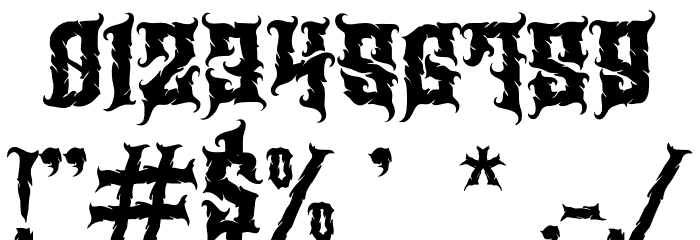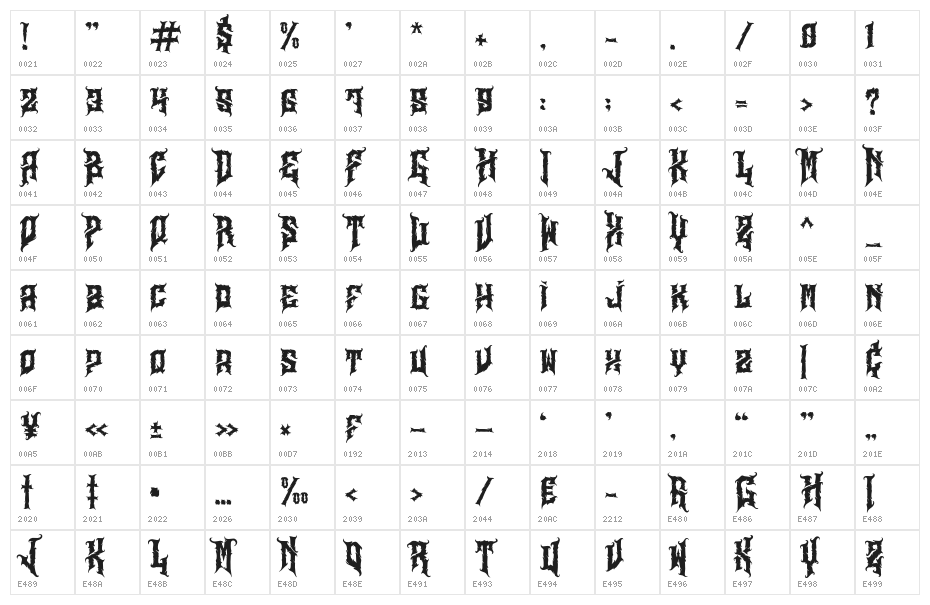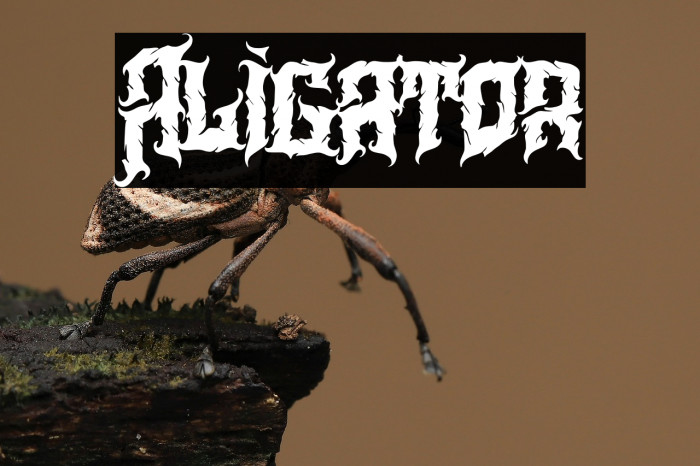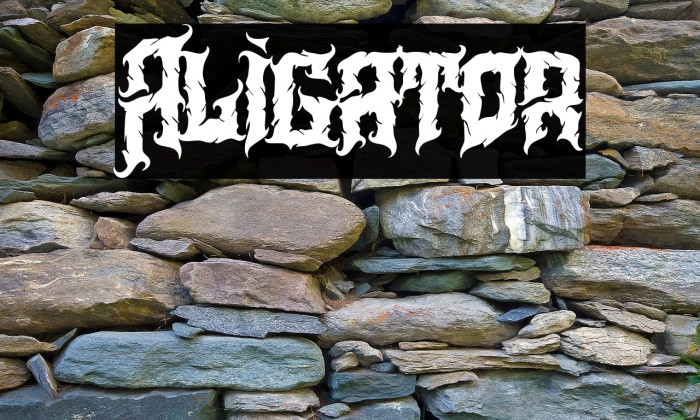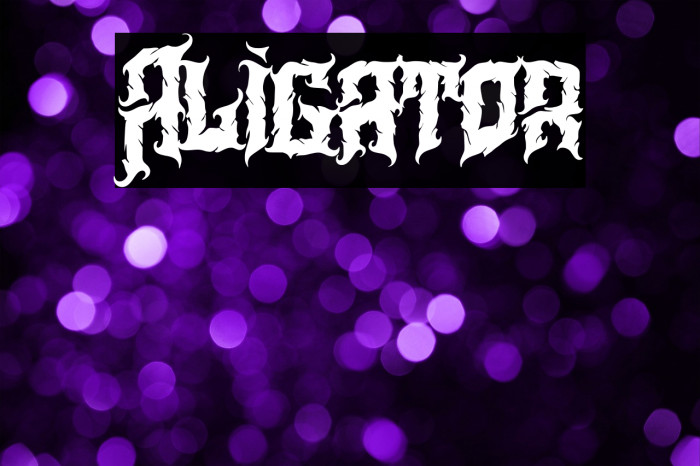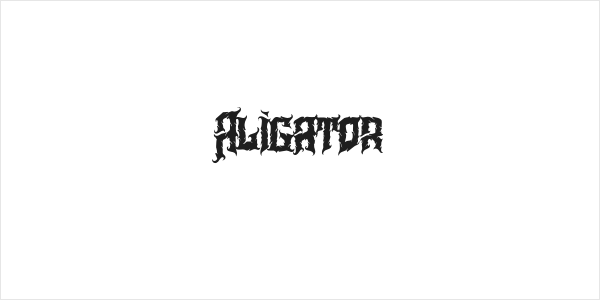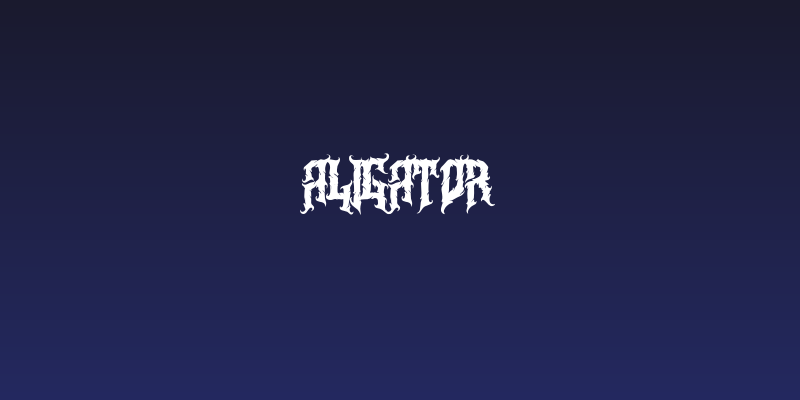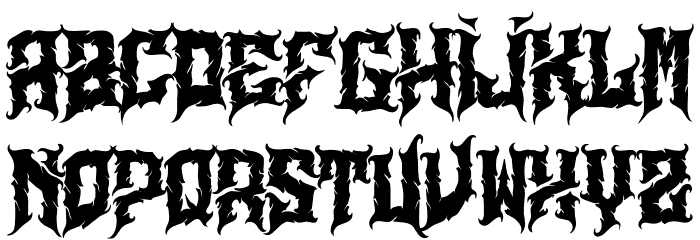
Aligator Font
Aligator Description
This font features a bold and aggressive style with sharp, jagged edges and intricate detailing reminiscent of gothic or tribal designs. The characters are highly decorative, with each letter exhibiting unique flourishes and spikes that create a sense of movement and intensity. The uppercase and lowercase letters maintain a consistent style, while the numbers and special characters are equally ornate, ensuring a cohesive look across all text. The font's dramatic appearance makes it stand out, ideal for projects that require a strong visual impact.
| Proposed Projects | Ideal for album covers, posters, tattoos, and branding that requires a bold, edgy aesthetic. |